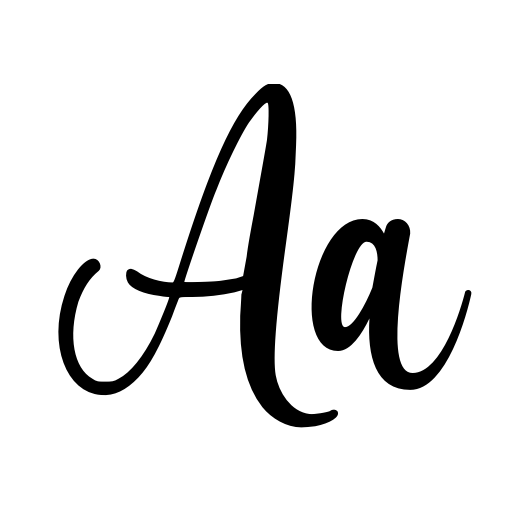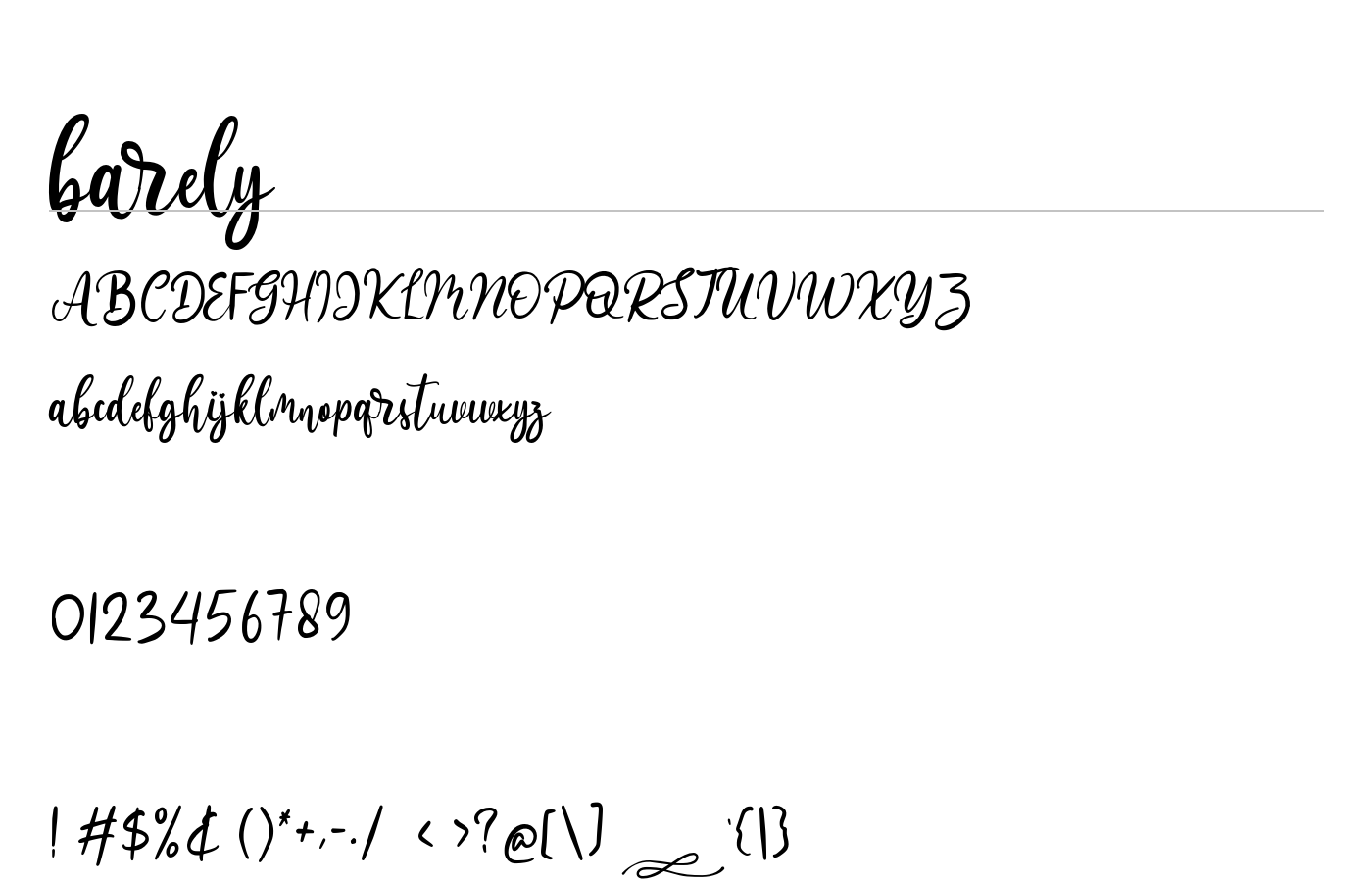
Barely Font is a delicate, cursive script with a light and flowing style that feels both elegant and approachable. Its smooth, connected letterforms and moderate contrast give it a handwritten charm, well suited for personal branding, invitations, and creative projects that aim for a friendly, stylish touch. This font works beautifully in logos, headers, and any design needing a graceful yet relaxed personality.
barely Font